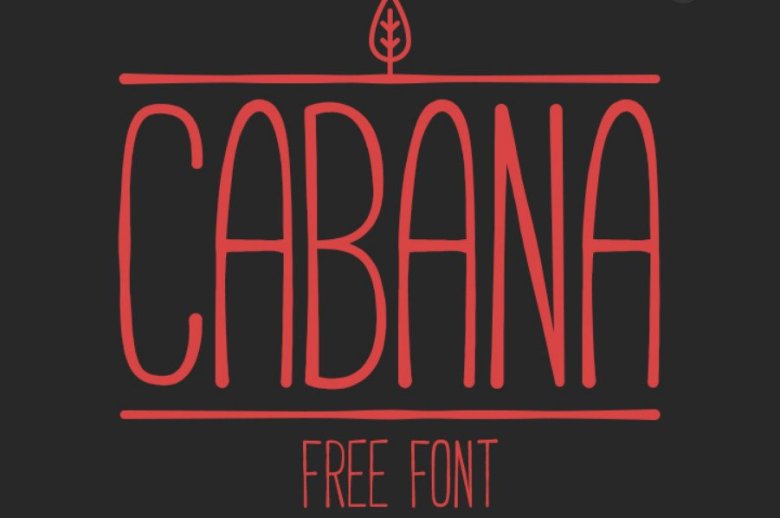
CABANA Typeface
Introducing CABANA! It is designed and shared by Adrien Coquet, a designer from Lille, France. Create a Extraordinary Typography / lettering results by using CABANA Typeface. Best match for logos, header, Titles, Prints & other Creative process possibilities.